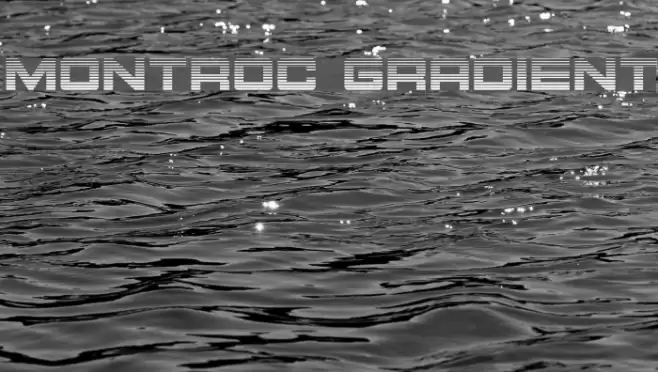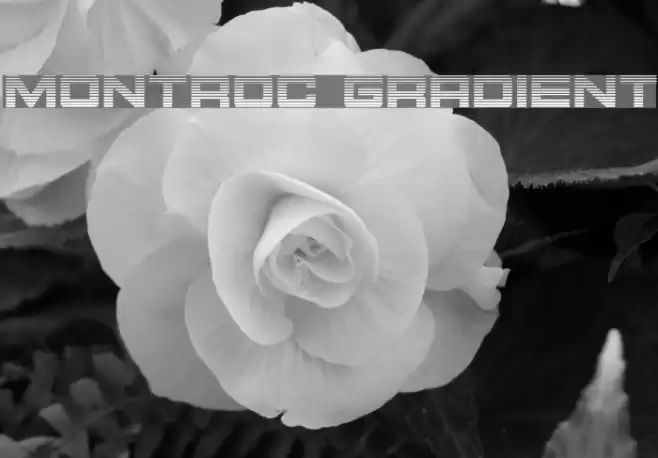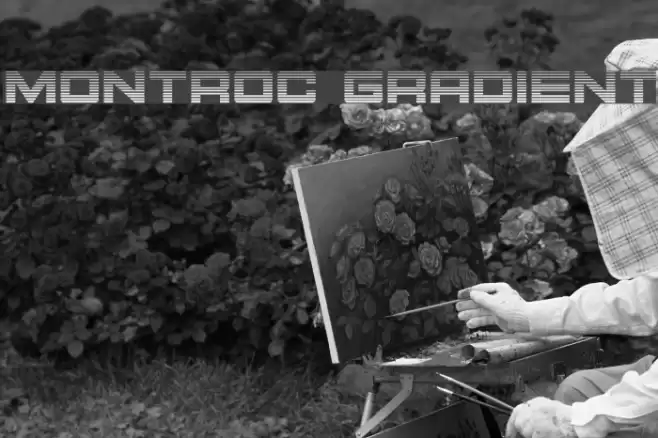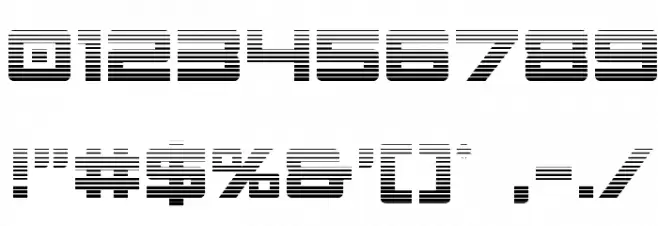
Montroc Gradient Font
Montroc Gradient Description
This font features a bold, modern design with a unique gradient effect created by horizontal lines running through each character. The uppercase and lowercase letters maintain a consistent width, giving the font a uniform appearance. The characters are constructed with a geometric precision, emphasizing straight lines and sharp angles. The gradient effect adds a dynamic and futuristic feel, making it stand out in digital and print media. The numbers and special characters follow the same design principles, ensuring a cohesive look across all text elements.
A bold, modern font with a gradient effect created by horizontal lines from Uncategorized fonts.
- Proposed Projects: Ideal for digital media, tech branding, futuristic posters, and video game graphics.